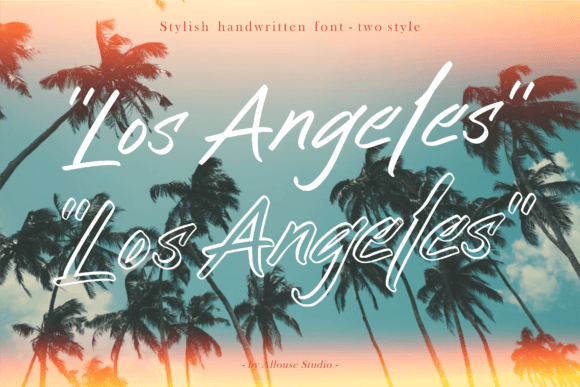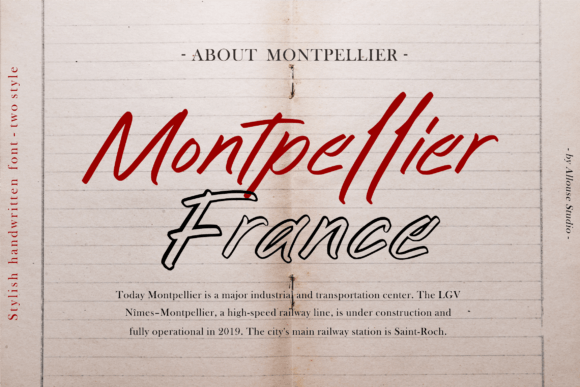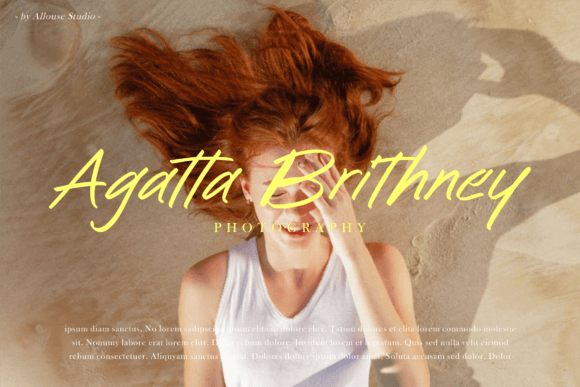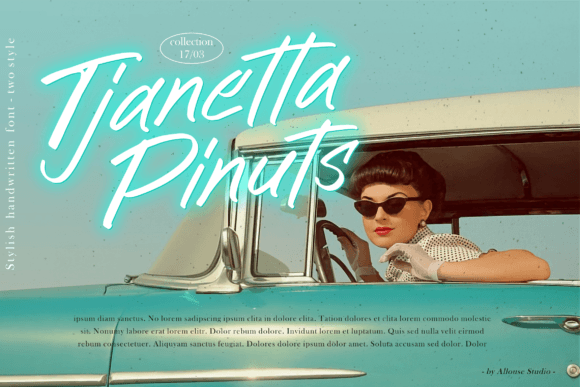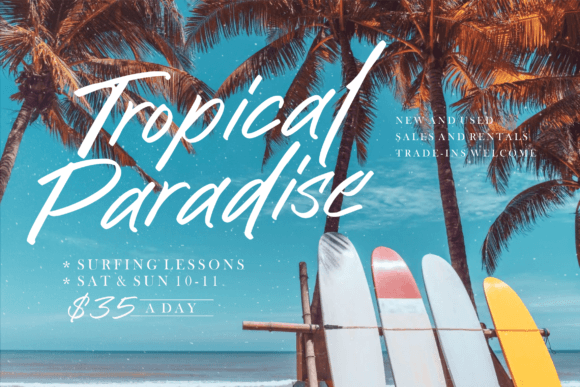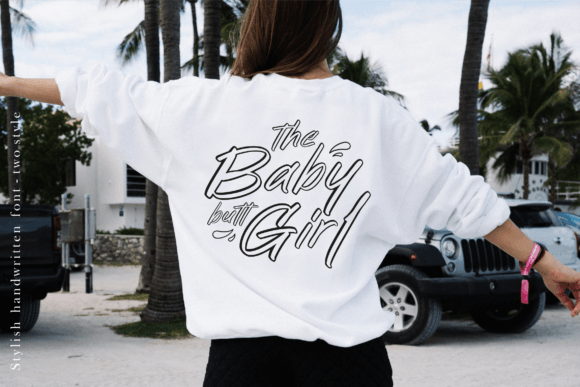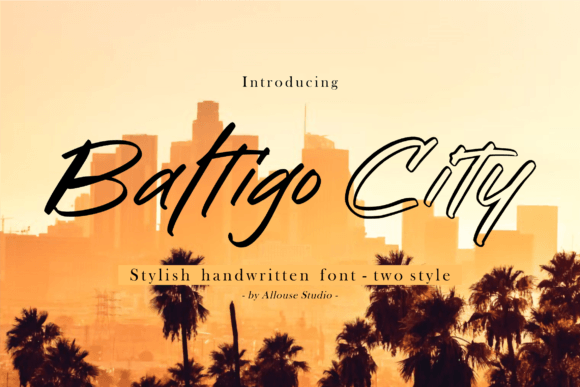
Baltigo City Font: Elevate Your Designs with a Stylish Handwritten Touch
In the world of design, fonts play a crucial role in conveying the message and aesthetic of a brand or project. Among the numerous fonts available, Baltigo City stands out as a stylish handwritten font that can add a touch of elegance and sophistication to various design applications. In this article, we’ll explore the features and benefits of Baltigo City, and how it can be used to elevate your designs.
What is Baltigo City Font?
Baltigo City is a modern handwritten font that comes in two distinct styles, offering versatility and flexibility for designers. This font is carefully crafted to provide a unique and stylish look that can be used in a wide range of design projects, from product packaging and branding to magazines, social media, and weddings.
Key Features of Baltigo City Font
- Handwritten Style: Baltigo City boasts a beautiful handwritten style that adds a personal touch to any design project.
- Two Styles: The font comes in two styles, providing options for designers to choose from and experiment with different looks.
- High-Quality Design: Baltigo City is designed with high-quality craftsmanship, ensuring that it looks great in various design applications.
- Easy to Read: The font is clear and easy to read, making it perfect for body text and headings.
Benefits of Using Baltigo City Font
Baltigo City offers several benefits for designers and crafters, including:
- Unique and Stylish: Baltigo City provides a unique and stylish look that can help your designs stand out from the crowd.
- Versatile: The font can be used in various design projects, from product packaging to social media graphics.
- Time-Saving: With Baltigo City, you can save time and effort in creating custom handwritten fonts for your designs.
Use Cases for Baltigo City Font
Baltigo City can be used in a variety of design projects, including:
- Product Packaging: Add a touch of elegance to your product packaging with Baltigo City.
- Branding Projects: Use Baltigo City to create a unique and stylish brand identity.
- Magazines and Editorials: Add a personal touch to your magazine and editorial designs with Baltigo City.
- Social Media Graphics: Use Baltigo City to create eye-catching social media graphics and posts.
- Weddings and Events: Add a touch of sophistication to your wedding and event designs with Baltigo City.
Tips for Using Baltigo City Font
Here are some tips for using Baltigo City effectively in your designs:
- Experiment with Different Styles: Try out both styles of Baltigo City to see which one works best for your design.
- Pair with Other Fonts: Pair Baltigo City with other fonts to create a unique and visually appealing typography.
- Use for Headings and Titles: Use Baltigo City for headings and titles to add a touch of elegance and sophistication.
- Adjust Font Size and Color: Experiment with different font sizes and colors to create a design that pops.
Baltigo City is a stylish handwritten font that can add a touch of elegance and sophistication to various design applications. With its two distinct styles, high-quality design, and ease of use, Baltigo City is perfect for designers and crafters looking to elevate their designs. Whether you’re working on product packaging, branding projects, magazines, social media graphics, or weddings, Baltigo City is a great choice. So why not give Baltigo City a try and see how it can take your designs to the next level?